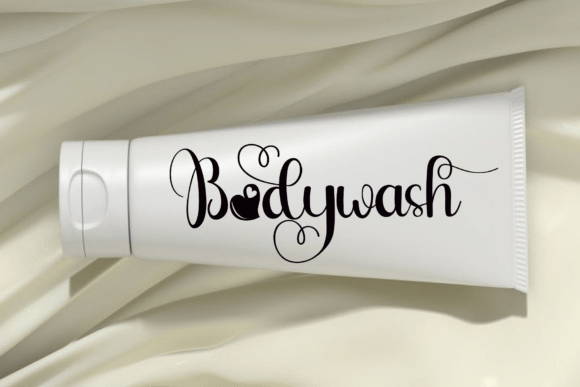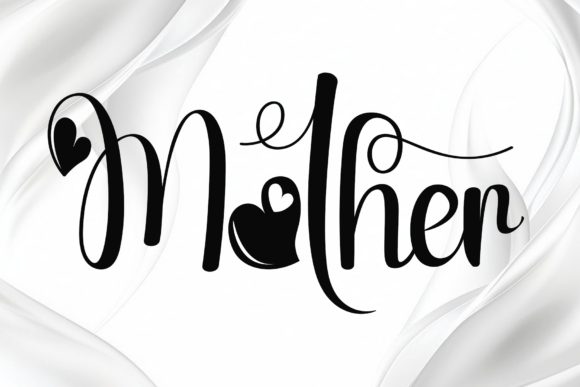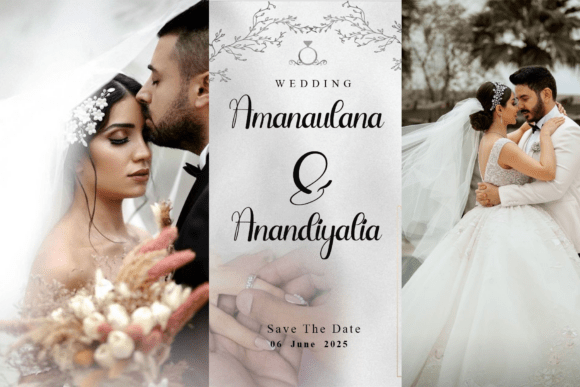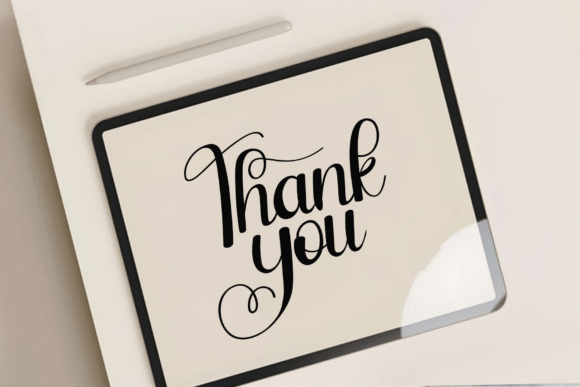
Introduction to Notion Monday Font
Notion Monday is a sweet and cursive handwritten font.
This gentle font will look gorgeous on a variety of design ideas It will add a joyful and romantic touch to each of your projects.
Key Features of Notion Monday Font
Why Choose Notion Monday Font?